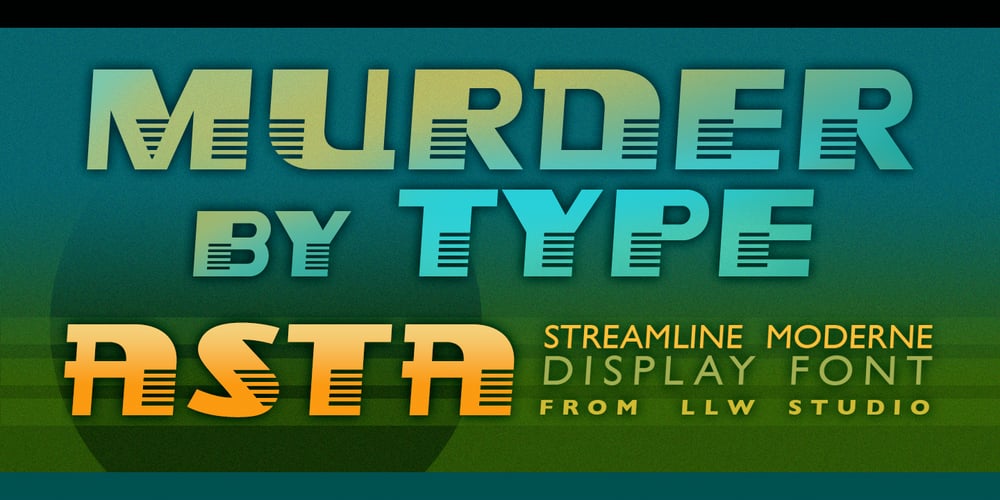
Asta
Asta font
Asta Font Family was designed by Lori LeBeau-Walsh and published by LLW Studio. Asta contains 1 styles and family package options. Asta, named after the adorable pup in the “Thin Man” movies from the 1930‘s and early ‘40‘s, is an Art Deco / Streamline Moderne all-caps display font. Inspired by forms from the iconic machinery of the day like trains and autos, Asta has a heavy and masculine proportion, a cut-in “grille” effect and a slight slant which emphasizes its moderne roots. Fantastic for illustration or retro applications like antique product “logos,” signs and vintage packaging, or for a fun & funky ‘70‘s Disco look.